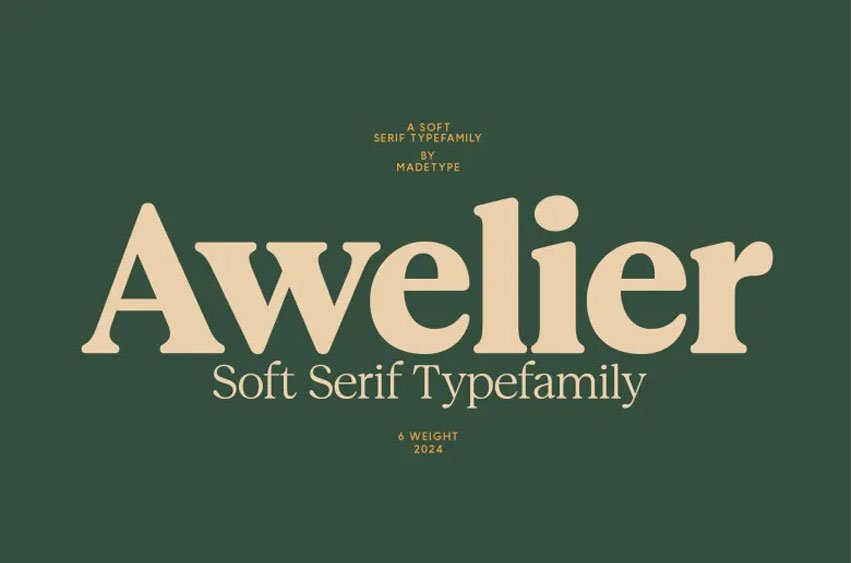
Awelier Font
Awelier Font is an elegant serif-like typeface. The files include Awelier Light.otf through Awelier Black.otf in order to meet all your text needs: uppercase and lowercase punctuation, letters, numbers as well as multilingual support (with 6 OTF files in zip folder).
MADE Awelier font is an attractive font designed to bring any design together in an attractive manner, including posters magazines logos merchandise presentation cards advertising quotes. Plus so much more!